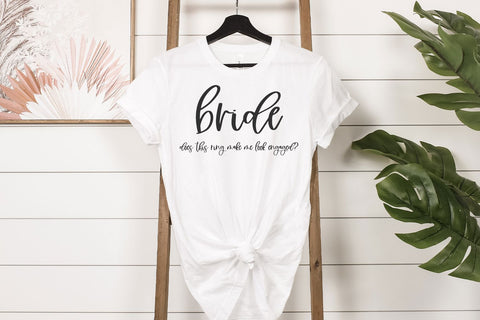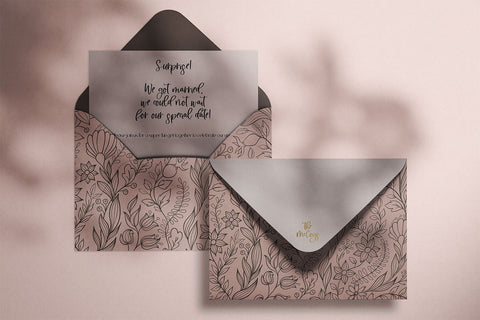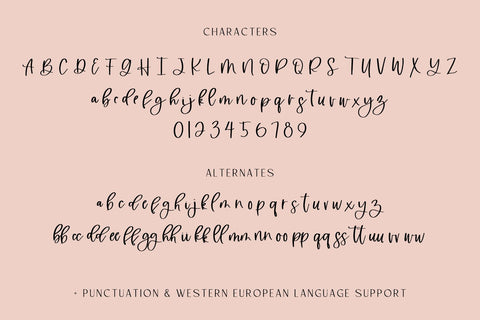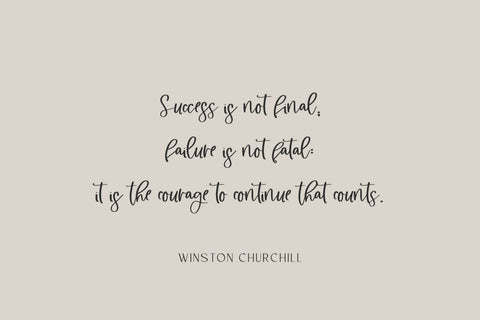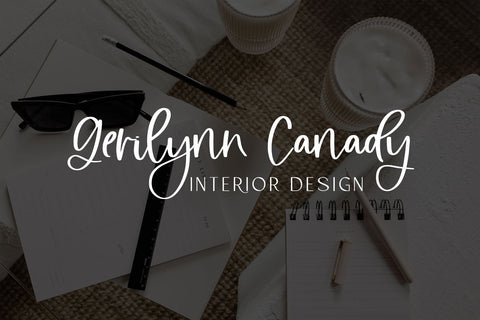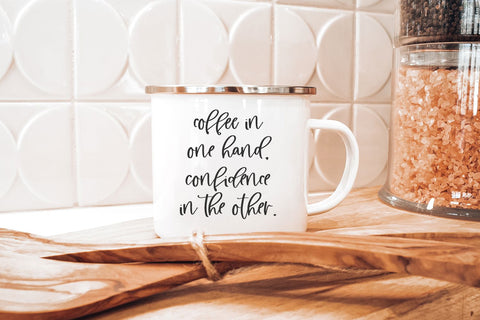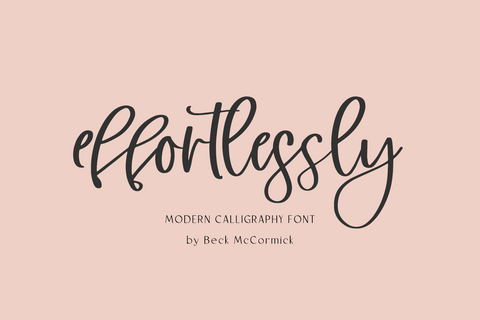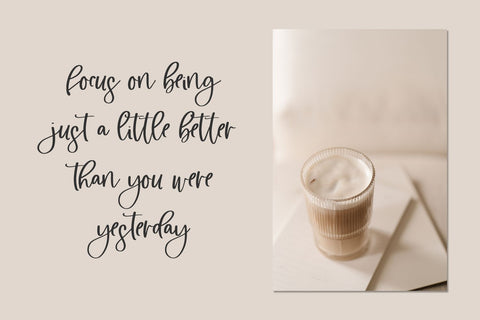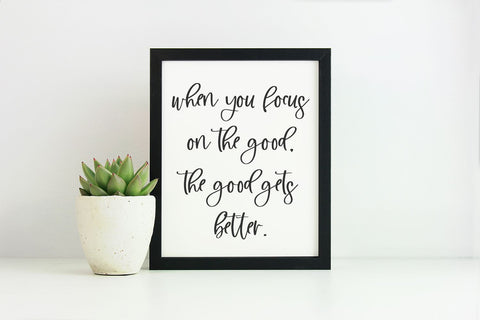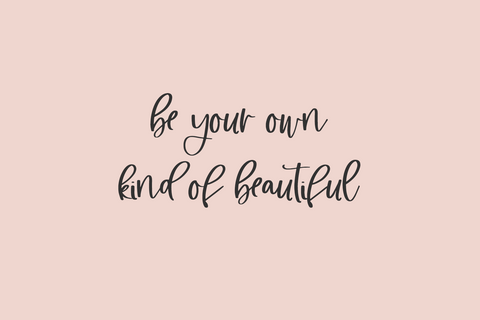
Effortlessly Script Font
Introducing Effortlessly, a cute handlettered modern calligraphy script. Effortlessly features 26 alternates & 20 ligatures to enhance the handwritten look & feel of your project, while still remaining clean & legible.
Effortlessly is best for:
- feminine, crafty projects with your Cricut or Silhouette machine, or your SVG design business
- wedding invitations, wedding favors, or wedding decor
- farmhouse decor and crafts
- logos + branding
- digital planners & apps like Goodnotes
- website design + website accents, blog design
- clean print design, like magazines + flyers
- header elements that need handwritten touch
- quote graphics for social media
- feminine graphic tee shirt design & other apparel
- full upper + lowercase characters
- 26 alternates
- 20 ligatures - bb, cc, dd, ee, ff, gg, hh, ii, kk, ll, mm, nn, oo, pp, qq, ss, tt, uu, vv, ww